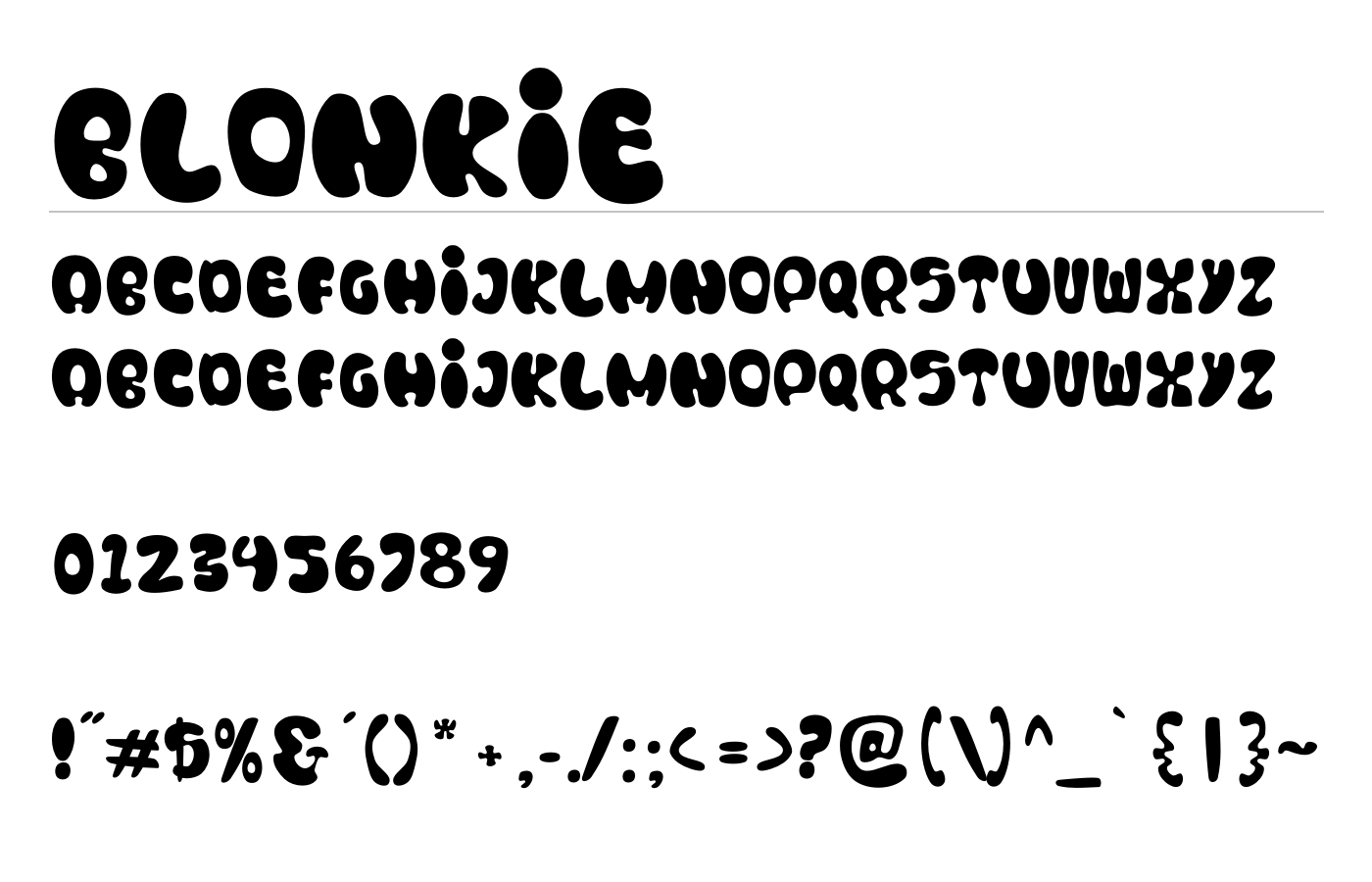
Blonkie is a playful, bold sans serif font with rounded, chunky letterforms that evoke a fun and friendly vibe. Its thick weight and wide, bubbly shapes make it ideal for attention-grabbing headlines, logos, and designs targeting a youthful or casual audience. This font works well in creative branding and display uses where a joyful and approachable feel is desired.
Blonkie Font
About Blonkie Font
| Font family | Blonkie Font |
| Designer | Kurnia Setyadi |